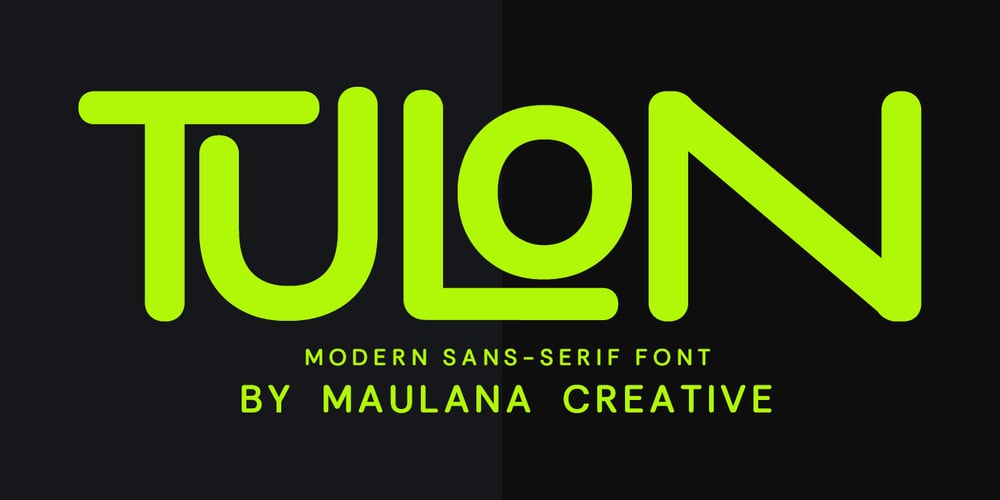
MC Tulon Font Family was designed by Gilang Maulana and published by Maulana Creative. MC Tulon contains 1 styles and family package options. Tulon modern sans serif font. Awesome character with a ligature and alternate. To give you an extra creative work. Tulon font support multilingual language. This font is good for logo design, Social media, Movie Titles, Books Titles, a short text even a long text letter and good for your secondary text font with sans or serif. Make a stunning work with Tulon font.Cheers,Maulana Creative